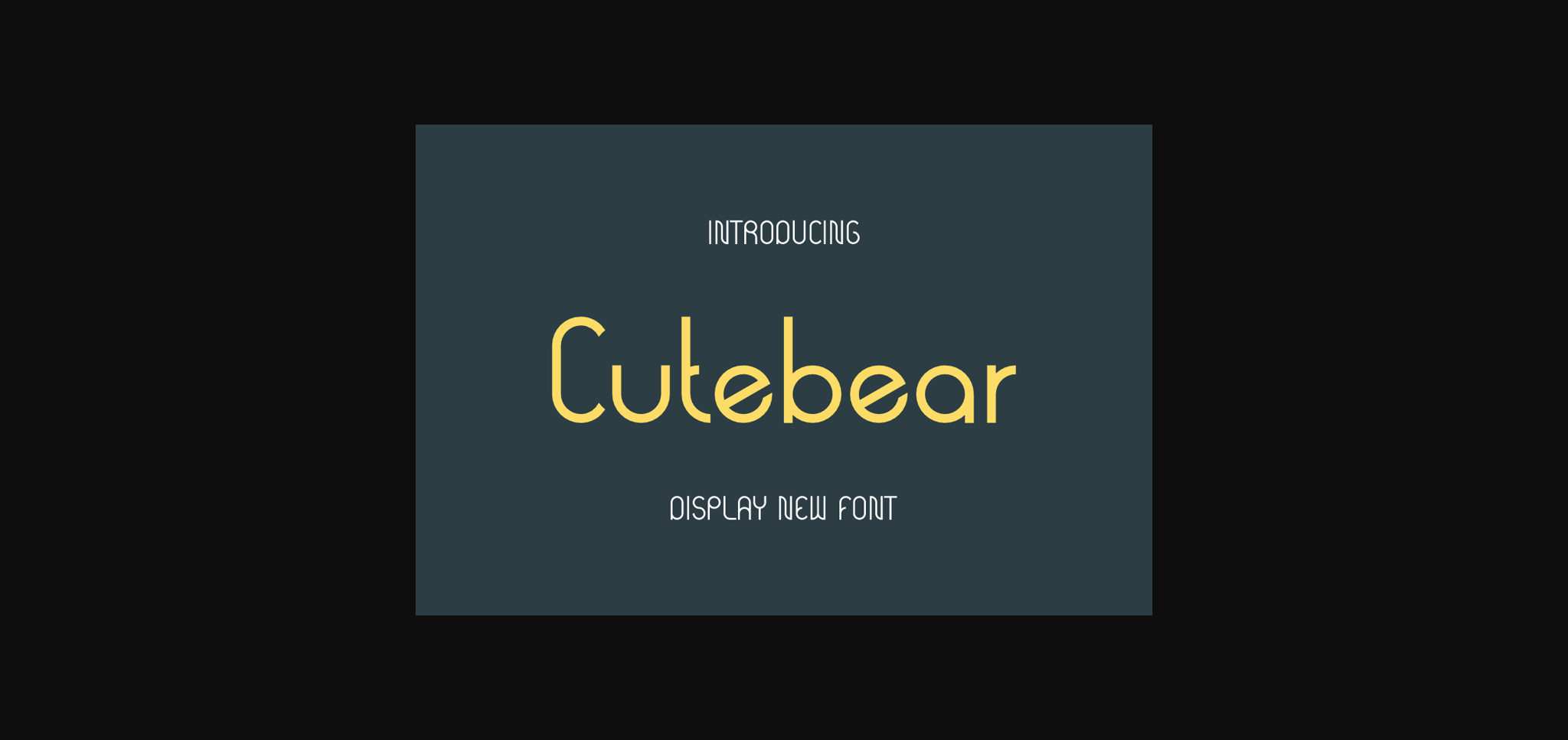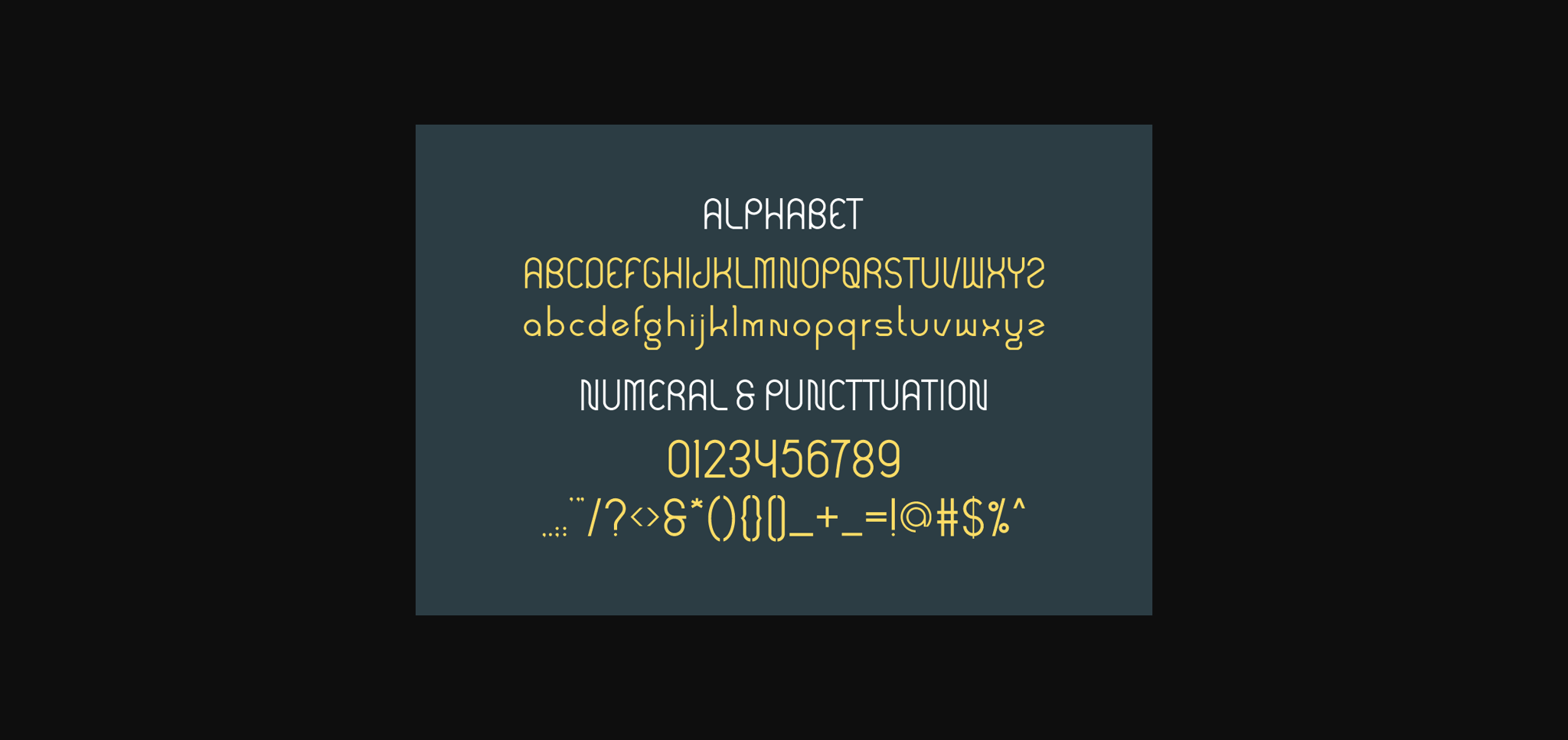
Cutebear Font
About Cutebear Font
Cutebear is a simple and authentic sans-serif font. The font is suitable for any branding project like logo, t-shirt printing, product packaging, and many more. It will look outstanding in a wide range of contexts.